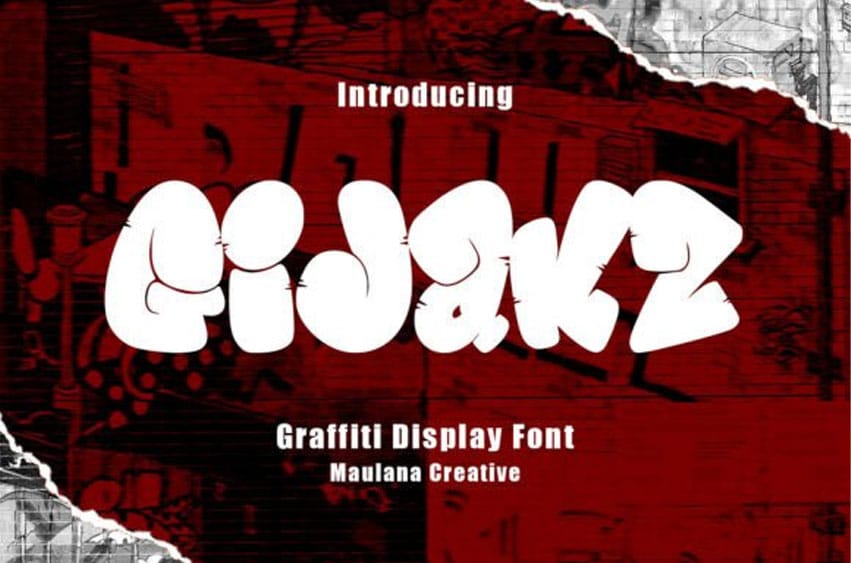
Gijaks Font is a unique and interesting display font.
A little bit quirky, this font looks incredibly adept in a wide variety of contexts!
Gijaks Font is a unique and interesting display font.
A little bit quirky, this font looks incredibly adept in a wide variety of contexts!